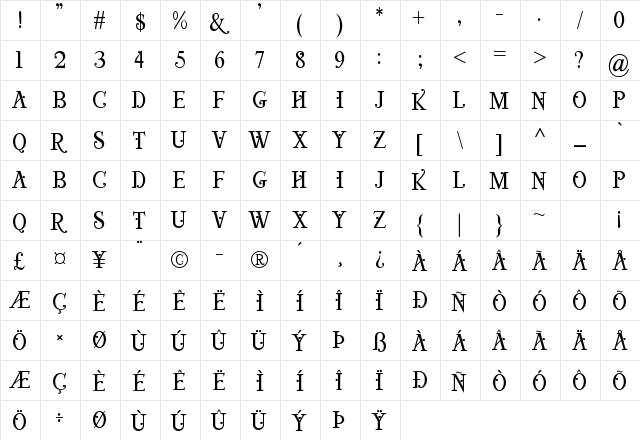
Viktoria Serif Regular
Design Context for Viktoria Serif Typeface
Viktoria Serif brings classic typographic sensibility to the table — its serifs and measured letterforms reflect centuries of print heritage.
Pro Tip: Use Viktoria Serif for editorial body copy and considered headline work. Pair with a neutral sans for UI elements or captions to create a classic hierarchy.